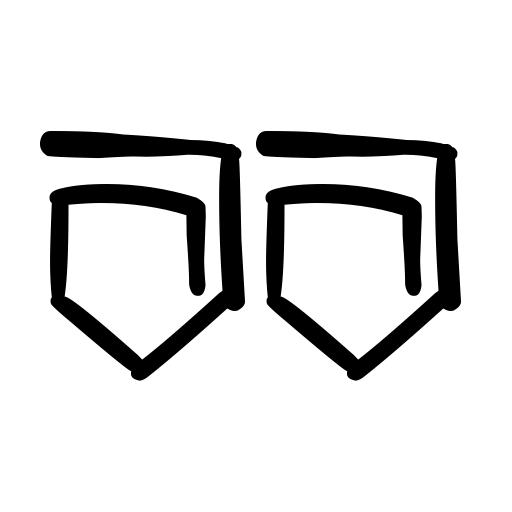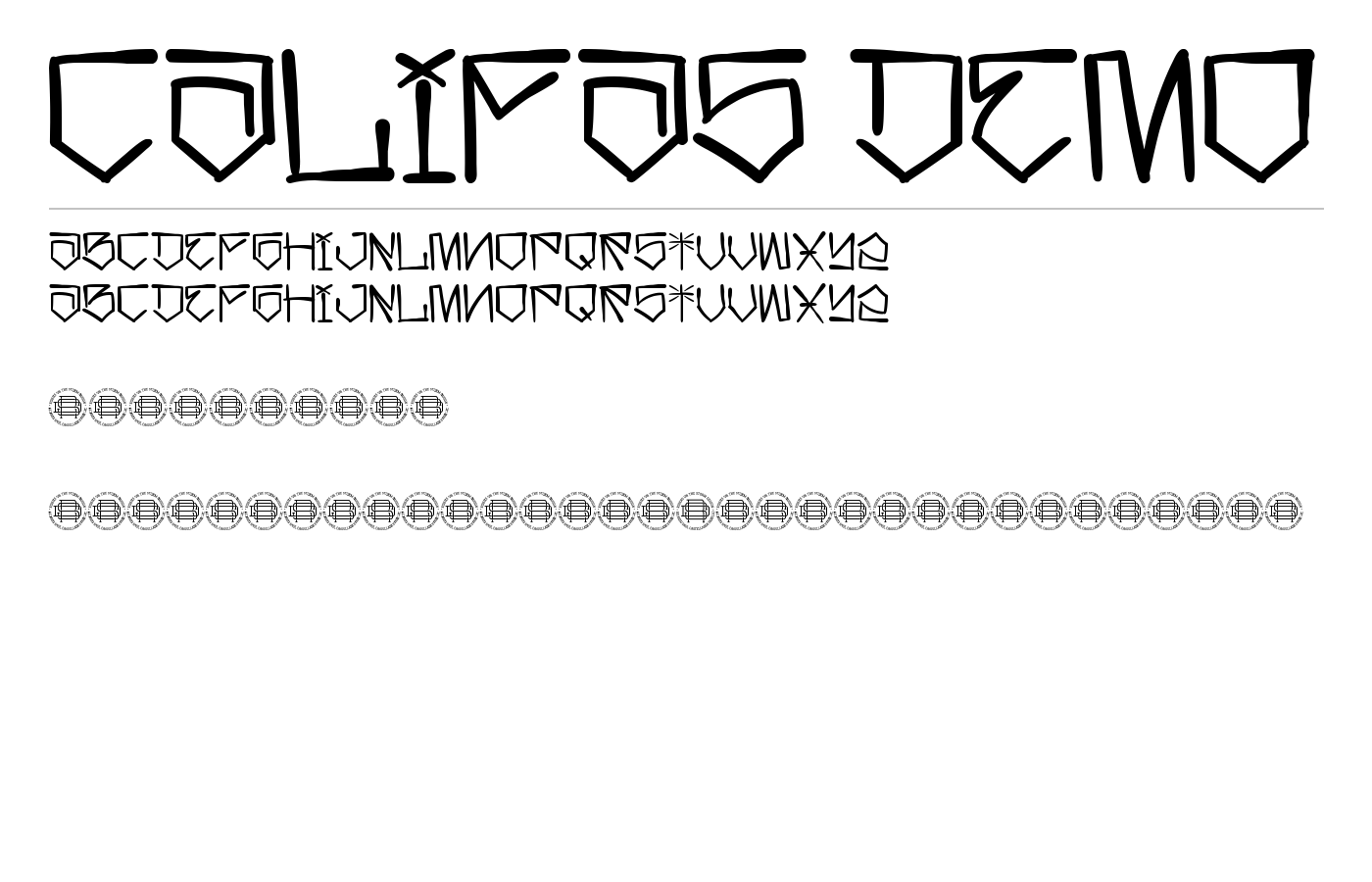
Califas Demo is a quirky, hand-drawn display font characterized by its tall, narrow letterforms and angular, geometric strokes that give it a unique, playful personality. With its irregular shapes and distinct, artistic vibe, it works well for creative projects, posters, and branding that seeks to stand out with a casual, handcrafted feel. This font adds a touch of individuality and charm, making it ideal for expressive headlines and logos rather than body text.
Califas Demo Font
About Califas Demo Font